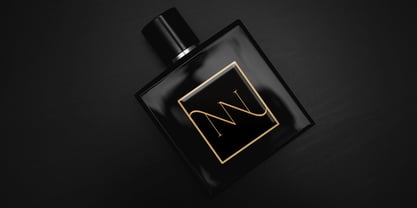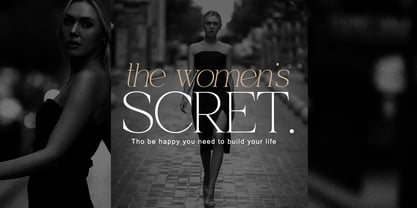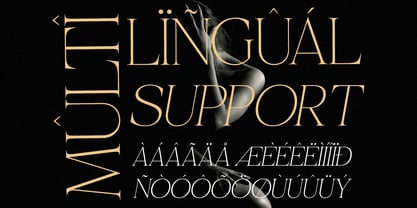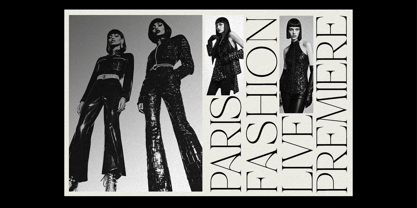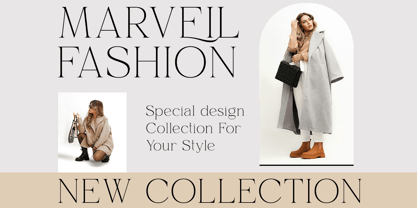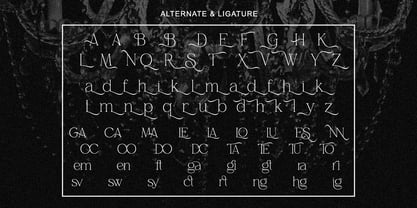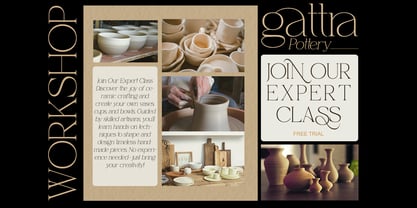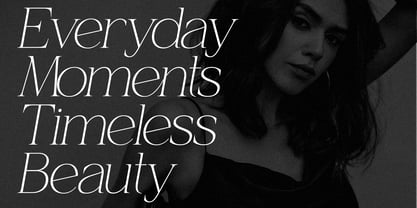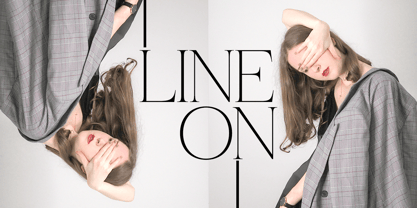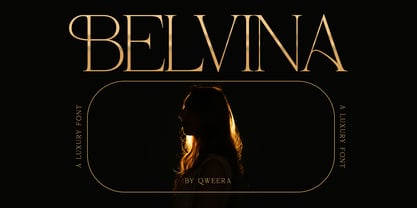
Belvina
by Qweera Studio
The Belvina Font Family was designed by Idhham Cholid Rikzano Yahya and published by Qweera Studio. Belvina contains 2 styles and family package options. More about this family
Belvina - Modern Luxury Serif Font for Sophisticated Visual Branding Belvina is a statement of elegance and modernity—crafted as a luxury serif typeface that merges high-end sophistication with clean, contemporary styling. The delicate curves, sharp contrasts, and graceful ligatures of Belvina make it ideal for designers aiming to project prestige and professionalism. Whether you're working on fashion editorials, premium product packaging, or exclusive branding, Belvina adds a refined finish that feels both timeless and fresh. Features: - Modern Luxury Serif – Stylish contrast and detail - 2 Styles – Regular & Italic for flexible applications - Elegant Alternates – Over 20 beautiful character variants - Classic Ligatures – Seamless and natural visual flow - Multilingual – Western European language support - Optimized for Branding – Ideal for print and digital media Ideal For: - High-end logo design - Fashion and beauty branding - Luxury product packaging - Elegant wedding invitations - Premium magazine layouts - Sophisticated social media templates Set the Tone with Belvina From upscale editorials to couture-inspired branding, Belvina delivers clarity, power, and elegance in every letter. Let your designs speak with presence and poise.